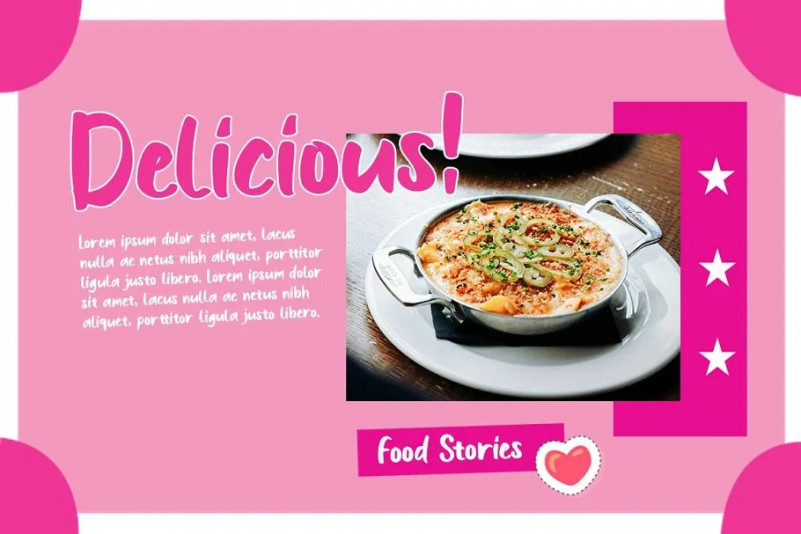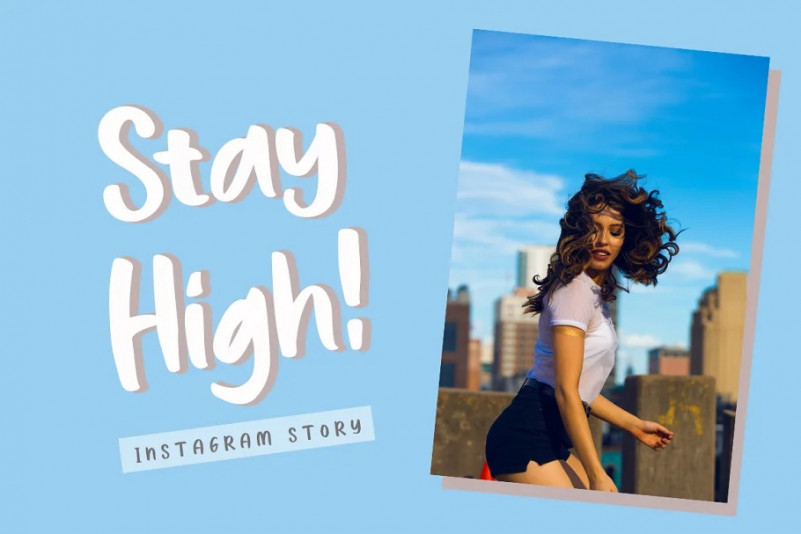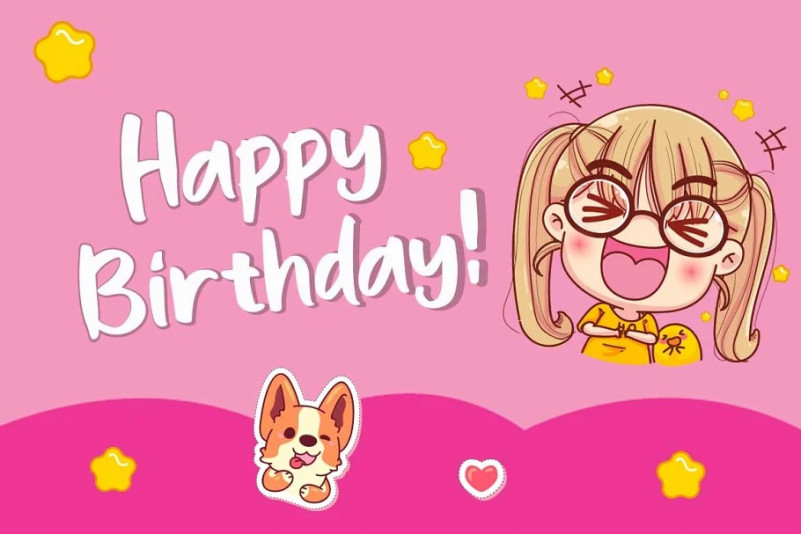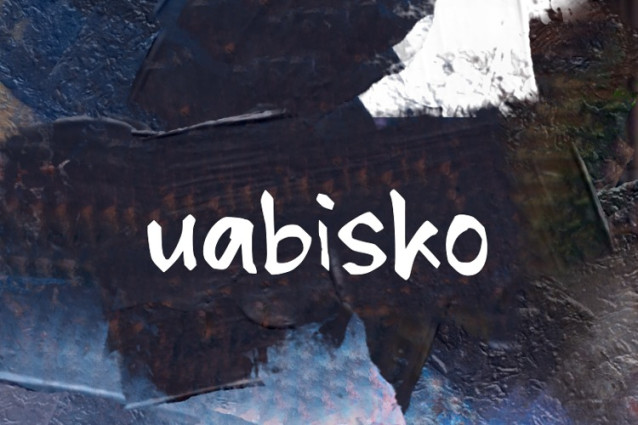
Uabisko Font
Uabisko Font is a chunky, comic, and cartoon display font. With its neat and joyful personality, this font will enhance any project you wish to create!